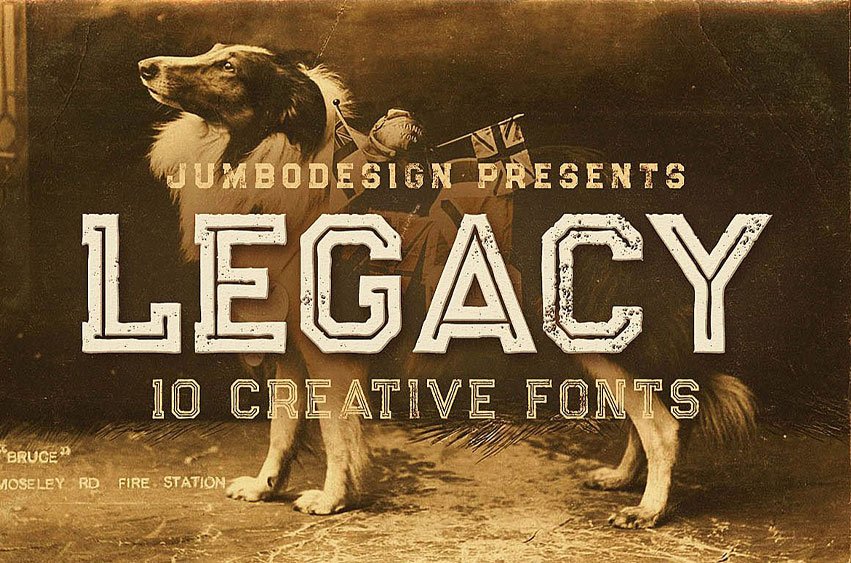
Legacy Creative Font
Legacy Creative Font is a stunning and robust display font, with various styles capable of taking your designs to the next level.
Vintage yet athletic, Legacy is an absolute stunner of a font.